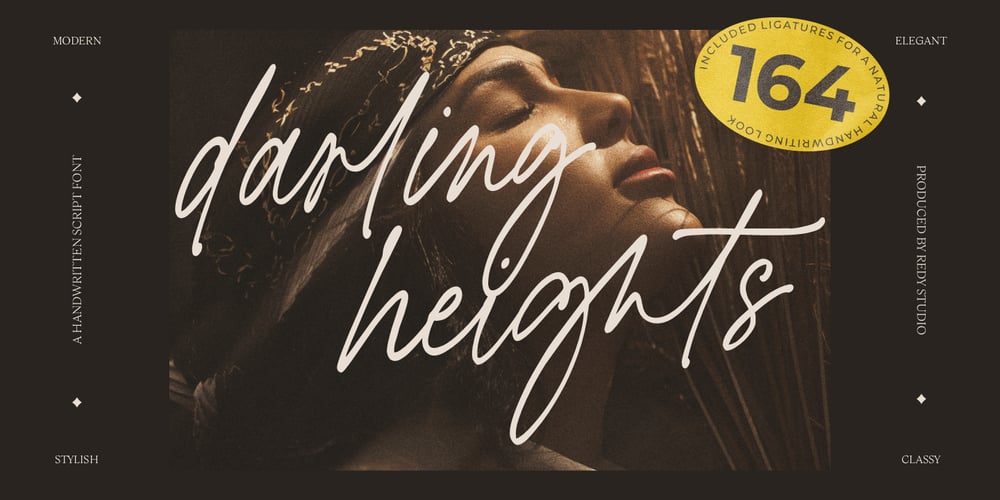
Darling heights
Darling heights Font Family was designed by Nurul Fajri Redy and published by Redy Studio. Darling heights contains 1 styles and family package options. Darling heights font is the perfect choice for a handwritten design. You can use it for quotes on your blog, posters, and other marketing materials, or even wedding invitations. Darling heights also includes 164 ligatures that will connect letters smoothly – helping to make the words flow more naturally. This font is perfect for leaving a lasting impression and making any design bit more special than usual.Feel free to give me a message if you have a problem or question. Thank you so much for taking the time to look at one of our products. ~Redy